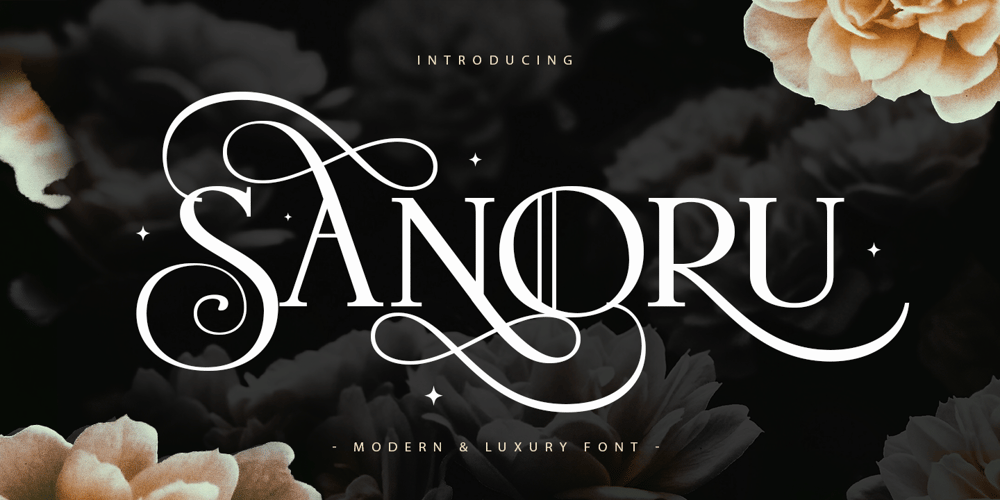
Sanoru
Sanoru font
Sanoru Font Family was designed by Gumilar Pratama Adiatna and published by Gilar Studio. Sanoru contains 2 styles and family package options. Introducing Sanoru – Modern & Luxury FontSanoru with 2 style Regular And Oblique with beauty swash. will work perfectly for fashion, e-commerce brands, trend blogs, wedding boutiques or any business . suitable for Display Project.Semaro also Suitable for Logo, greeting cards, quotes, posters, branding, name card, stationary, design title, blog header, art quote, typography, art, modern envelope lettering or book design, craft design, any DIY project, book title, or any purpose to make your art/design project look pretty and trendy.To access all OpenType Stylistic alternates, you need a program that supports OpenType features such as Adobe Illustrator, Adobe Photoshop, CorelDraw and Microsoft word.Features : Uppercase & Lowercase Numerals & Punctuations Accents/Multilingual characters Beautyful Ligature & Swash PUA Encoded Feel Free contact me if u any question. Give it a try! You will surely love it ! Thanks and have a wonderful day, Gilar 🙂